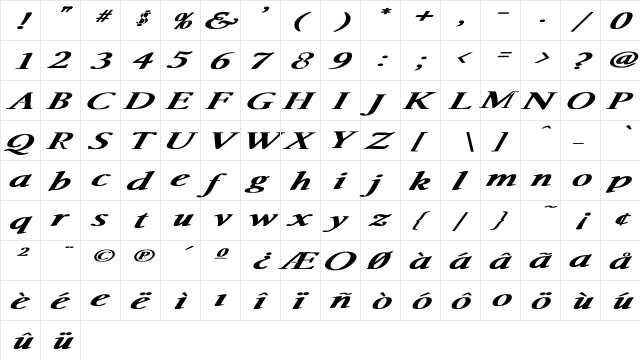
RSJacksonville Ex BOLD ITALIC Bold Italic
Design Context for RSJacksonville Ex BOLD ITALIC Typeface
RSJacksonville Ex BOLD ITALIC is a composed and adaptable typeface that performs quietly and consistently across a wide range of design contexts. Its italic angle brings a sense of urgency and motion to the letterforms. The heavy weight commands attention and anchors typographic hierarchies.